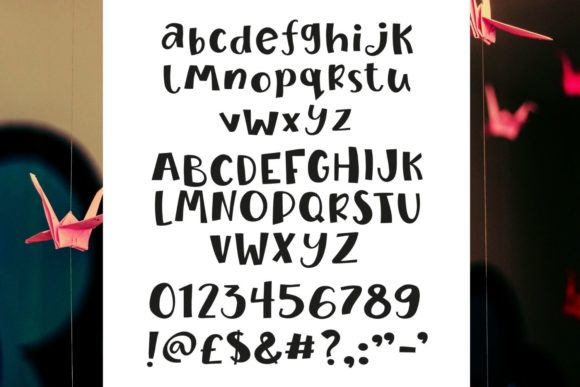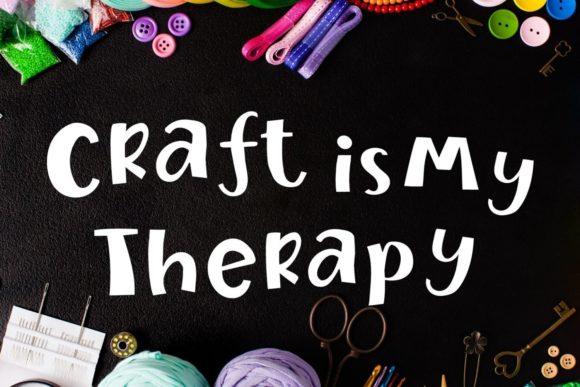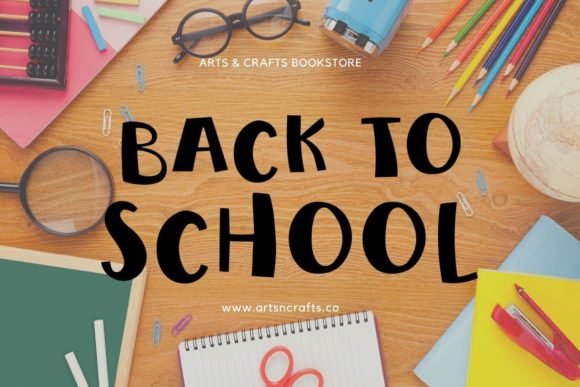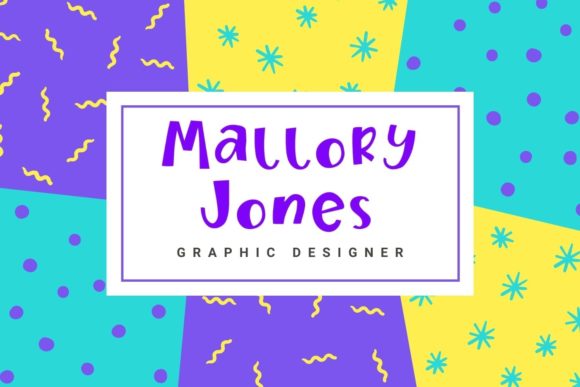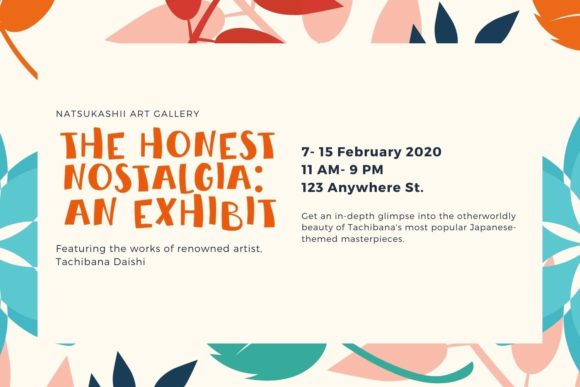
Introduction to Origami Owl Font
Remember the excitement of creating your first origami paper crane? The thrill of watching a flat sheet of paper transform into a delicate, 3D masterpiece? For designers, that same sense of wonder and creativity can be found in the right fonts – and the Origami Owl Font is one that’s sure to bring a smile to your face.
| 👤 Author | Jojo & Bella |
As a design resource, Origami Owl Font offers a unique blend of friendliness and approachability, making it the perfect choice for any creative project. Whether you’re working on a digital design, a presentation, or a handmade greeting card, this high-quality font is sure to add a touch of warmth and personality to your work.
Key Features of Origami Owl Font
- High-quality design resource ideal for creative projects, including jewelry and accessory designs
- Includes a range of characters, including uppercase and lowercase letters, numbers, and special characters
- Designed with a modern and elegant aesthetic, making it perfect for a variety of creative projects
Honest Review: Origami Owl Font
I recently had the chance to work with the Origami Owl Font, and I’m excited to share my honest review. This font is a great addition to any designer’s toolkit, especially for creative projects that require a unique and whimsical touch.
- ✨ High quality design: The Origami Owl Font is beautifully crafted, with intricate details and a cohesive style.
- ✨ Transparent background: This makes it easy to combine with other design elements and create a seamless look.
- ⚠️ Limited customization options: While the font is well-designed, there are limited options for customization, which may limit its use in certain projects.
- ⚠️ Not suitable for large-scale text: Due to its intricate design, the Origami Owl Font may not be the best choice for large-scale text or headlines.
Overall, I’m impressed with the Origami Owl Font. While it may have some limitations, its high-quality design and transparent background make it a valuable resource for designers working on creative projects. If you’re looking for a unique and eye-catching font, I’d definitely recommend checking it out.
How to Use Origami Owl Font
The Origami Owl Font is a unique and versatile design resource that can add a touch of elegance to any creative project. With its high quality and transparent background, this font is perfect for designers and artists looking to create stunning visual effects.
Tips for Getting the Most Out of the Origami Owl Font
To get the most out of the Origami Owl Font, try the following tips:
Experiment with different font sizes and styles to create a unique visual effect.
Combine the Origami Owl Font with other design elements, such as images and graphics, to create a cohesive design.
Use the transparent background feature to create a sense of depth and dimension in your design.
The Origami Owl Font is perfect for a variety of creative projects, including:
Business cards and marketing materials
Artistic and creative projects